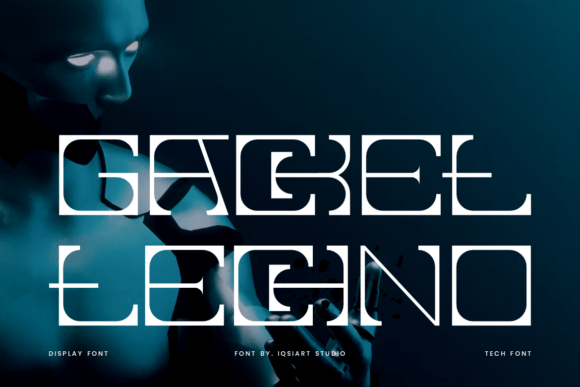
Gacket Techno: A Futuristic Display Font That Elevates Real Small Business Branding
Last Tuesday, I was helping my neighbor—owner of a small-batch candle studio—update her jar labels. She’d printed three versions already: one too delicate (got lost on dark glass), one too generic (looked like every other soy candle on Etsy), and one with clashing fonts that made the “hand-poured” claim feel unintentionally ironic. That’s when we opened Gacket Techno—and everything clicked.
What Makes Gacket Techno Stand Out in Real-World Branding
Gacket Techno is a premium display typeface built for impact, not subtlety. Think bold, wide geometric characters with sharp arcs and confident angles—not cold or robotic, but purposefully futuristic, like something you’d see on a sleek lab-coat pocket badge or a minimalist tech boutique’s storefront. It’s not meant for paragraphs or ingredient lists. It’s for moments where your brand needs to say, “We’re here—and we mean business.”
I’ve used it on café menu headers, boutique clothing tags, skincare product titles, and Instagram story banners—and each time, it added polish without pretension. The width gives it presence at small sizes (like 14pt on a tea bag tag), and the clean geometry ensures it holds up beautifully on both matte paper labels and glossy digital thumbnails.
Where It Works Best—And Where to Pause
Gacket Techno shines brightest as display text: logo wordmarks, packaging headlines (“Small-Batch Lavender,” “Cold-Pressed Serum”), shop banner text, and social media graphics. Its personality is strong, so it works best when paired with something grounded—like a clean sans serif (think Inter, Poppins, or Montserrat) for body copy or captions. For a candle brand, we used Gacket Techno for the scent name and paired it with a soft, airy sans for the description—immediate contrast, zero visual noise.
It’s not ideal for long blocks of text, fine print, or tiny QR code footers. On a 2oz skincare label? Perfect for the product title above the barcode. Not for the full ingredient list below it. Likewise, on an online shop banner: yes, for “New Collection Launch.” No, for the shipping policy footnote.
Real Uses That Actually Made a Difference
A local bakery used Gacket Techno on their seasonal pastry box—just the flavor name (“Honey Cardamom Brioche”) stamped in metallic foil. Customers started photographing the boxes before even opening them. Why? Because the font gave warmth *and* precision—it felt artisanal but intentional.
A wellness coach redesigned her email header with Gacket Techno for her program name (“Clarity Circle”), then switched to a warm serif (like Playfair Display) for the tagline. The shift made her materials look cohesive across platforms—no more “designed in a hurry” energy.
Even on mobile, it performs well. We tested it in Instagram carousel slides: large enough to read instantly on thumb-scroll, distinctive enough to pause mid-feed. No pixelation, no awkward spacing—even at 28px on a cropped thumbnail.
Why Typography Quietly Builds Trust
Here’s what customers notice before they even read a word: consistency, clarity, and care. When your candle label, website banner, and Instagram highlight all use the same bold, confident headline font—paired thoughtfully with supporting type—you signal professionalism without saying a thing. It tells people you’ve invested time in how your brand feels, not just how it looks.
Gacket Techno doesn’t scream. It stands. And in a crowded marketplace—whether it’s a farmers’ market stall, a Shopify homepage, or a booth at a craft fair—that quiet confidence makes all the difference.
If you’re refreshing packaging, reworking your shop banner, or simply tired of fonts that blend into the background, Gacket Techno isn’t just another display font. It’s a small, smart upgrade—one that says your business is forward-thinking, intentional, and ready to be remembered.